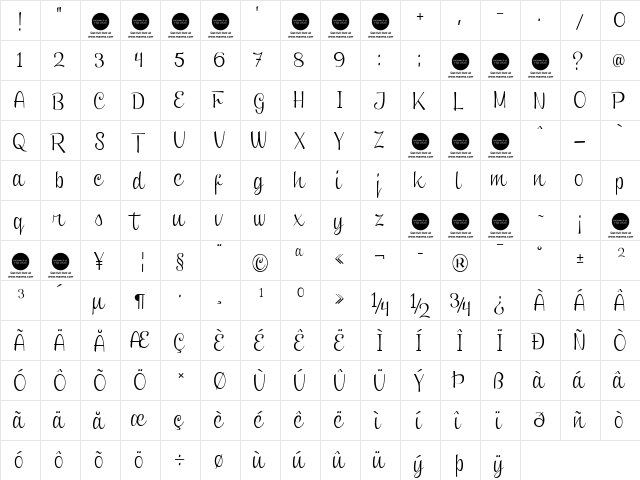
Clipper Script (Personal Use) Regular
| Foundry | M害 Greb䣫 |
| Designer | M害 Greb䣫 |
Design Context for Clipper Script (Personal Use) Typeface
Clipper Script (Personal Use) brings a calligraphic fluidity to the page — its connecting strokes and expressive curves give it an unmistakably human quality.
Font Pairing: Combine Clipper Script (Personal Use) with a simple geometric sans for maximum contrast — the tension between flowing curves and clean structure is a classic typographic pairing.